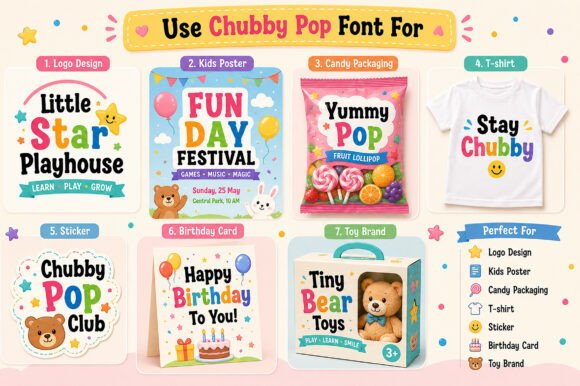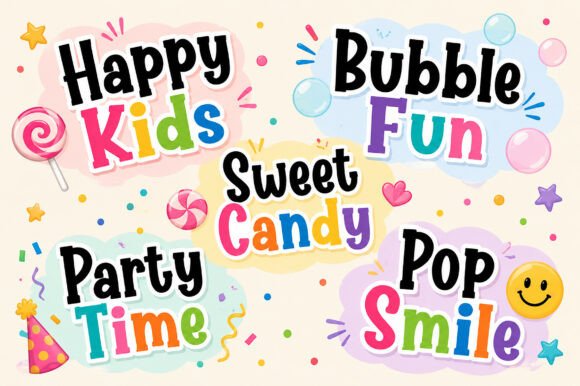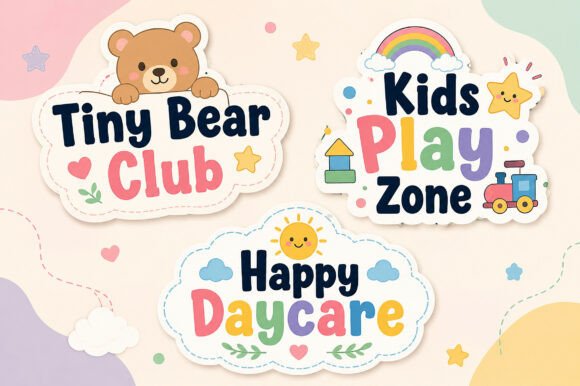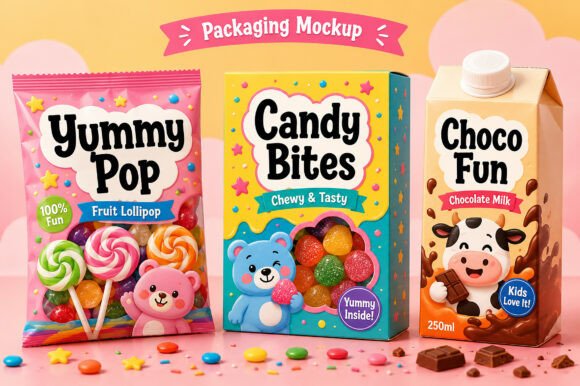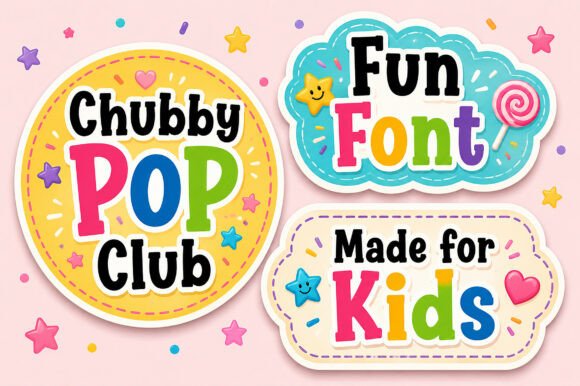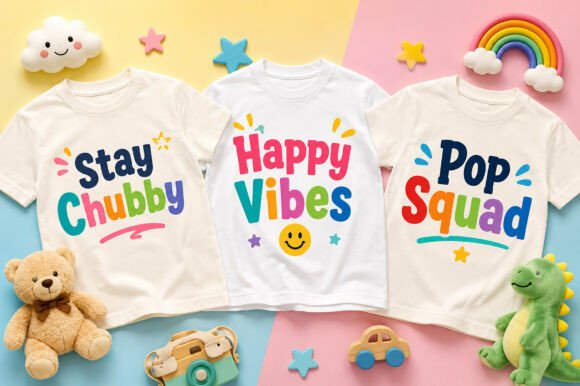
Introduction to Chubby Pop Font
Satisfy your design sweet tooth with Chubby Pop, an incredibly fun, chunky display font bursting with joyful candy-coated energy.
Striking a delightful balance between cartoon whimsy and heavy modern block typography, this typeface features extra-thick, rounded letterforms layered with a bouncy, dancing rhythm Its plump weight and friendly layout make it highly scannable and an absolute dream for pairing with bright outlines, 3D pop text effects, or colorful drop shadows.
Key Features of Chubby Pop Font
Chubby Pop Font offers exceptional quality and versatility, making it a valuable addition to your design toolkit. Whether you’re creating for personal projects or commercial use, Chubby Pop Font delivers professional results.